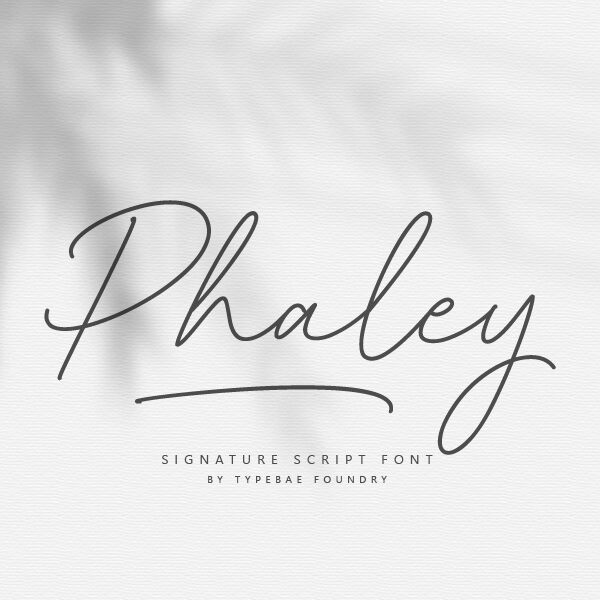
Phaley
Phaley font by Typebae Foundry is a charming handwritten typeface that exudes a sense of warmth and personal touch. With its light, flowing strokes, it captures the essence of casual elegance, making every letter feel like a handwritten note delivered with care. The playful curves and unique flourishes evoke creativity and spontaneity, drawing the viewer’s eye without overwhelming.
Ideal for branding projects, invitations, or any design that aims to convey intimacy and creativity, Phaley effortlessly enhances visual narratives. Whether used for headlines or body text, this font brings an organic feel to digital and print mediums alike-perfect for crafting memorable experiences in any context.